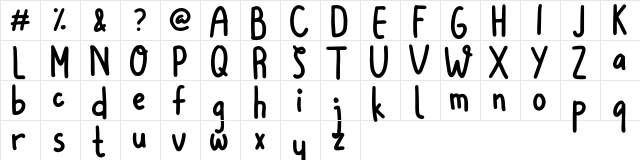
Winter Snow Regular
| Foundry | Wyarecreatype |
| Designer | Yudi Setiawan |
Design Context for Winter Snow Typeface
Winter Snow takes a measured approach to typography — its balanced proportions and neutral character make it a reliable workhorse for both digital and print work.